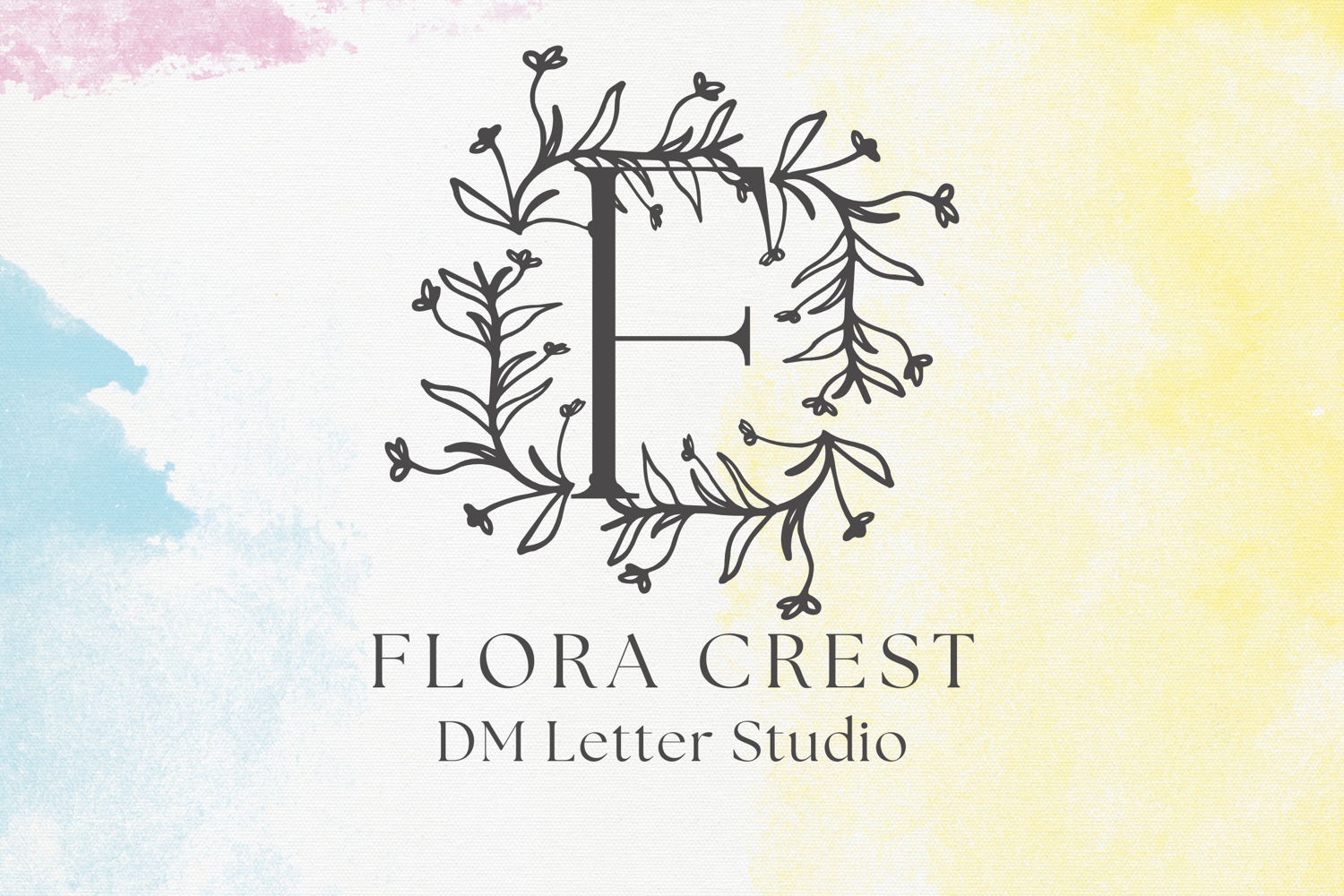
Flora Crest Monogram - Botanical Serif Monogram Font
Flora Crest Monogram
Flora Crest Monogram – Botanical Serif Monogram Font
Flora Crest Monogram is an elegant serif monogram font inspired by vintage botanical crests and floral heraldry. Each uppercase letter is paired with refined floral elements, making it perfect for timeless monograms, wedding branding, and luxury packaging. With its classic curves and ornamental details, this font adds a touch of nature-inspired sophistication to any customized design.
• Botanical Crest Design: Delicate floral accents frame each uppercase letter for a nature-themed monogram look.
• Refined Serif Base: Traditional serif structure ensures elegance, balance, and clarity.
• Ideal for Customization: Perfect for initials, custom logos, wedding designs, and heirloom projects.
• Ideal For: Wedding monograms, upscale branding, invitations, home decor, custom gifts, and floral stationery.